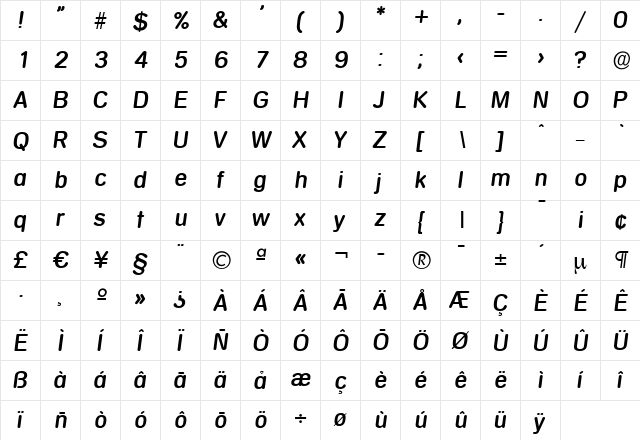
AndreasBecker Italic
Design Context for AndreasBecker Typeface
AndreasBecker is a composed and adaptable typeface that performs quietly and consistently across a wide range of design contexts. The slanted form adds forward momentum and visual energy.
Pro Tip: Try AndreasBecker for annotation and caption copy alongside an upright companion — the contrast in angle creates a dynamic but ordered typographic system.